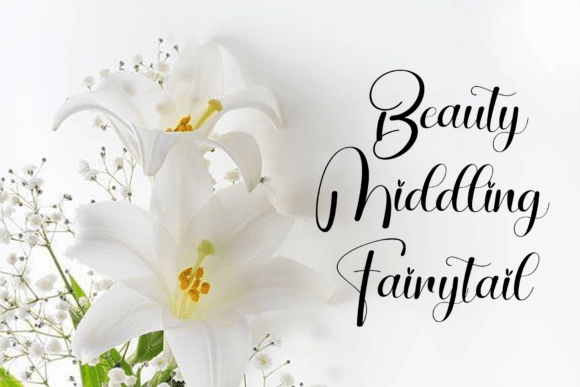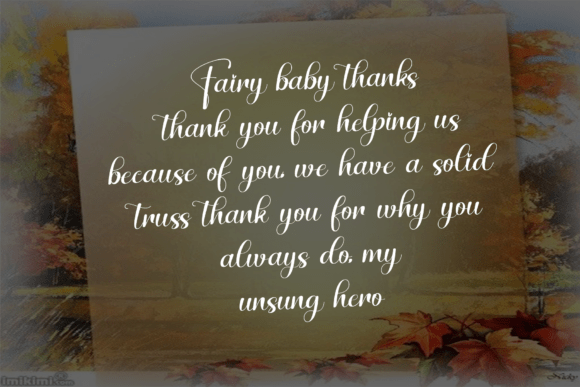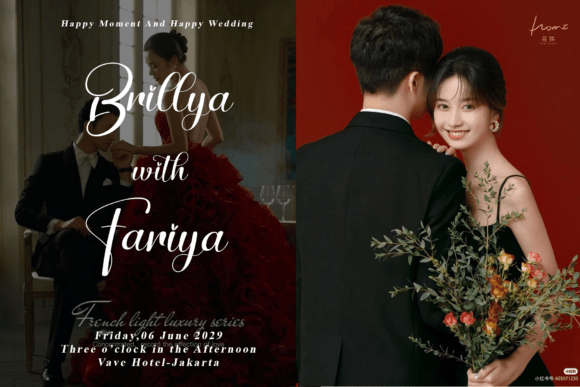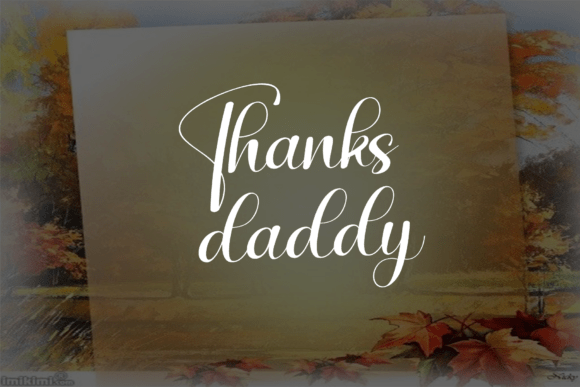
Bring Magnolia: The Elegant Handwritten Script Font You Need
An Honest Review of Bring Magnolia
- ✨ Smooth, fluid strokes that give the font a graceful and modern feel
- ✅ Lovely ornamental curves that add a touch of romance and femininity
- ✅ Excellent legibility due to consistent weight and clean connections
While Bring Magnolia is an exceptional font, there are a few minor things to consider:
- ⚠️ Some letters may require adjustment to achieve the perfect spacing, especially when using all caps or mixing with other fonts
- 🤔 May not be suitable for very large or very small text sizes, as some details might get lost
The Story Behind Bring Magnolia
Bring Magnolia was designed with the intention of creating a beautiful, versatile handwritten script font. The designer aimed to craft a font that would be both elegant and approachable, perfect for a wide range of creative projects. With its smooth strokes and lovely curves, Bring Magnolia quickly gained popularity among designers and crafters.
Q: Does Bring Magnolia support OpenType features?
A: Yes, Bring Magnolia supports OpenType features, including stylistic alternates and glyphs. This allows for greater flexibility and creativity in your designs.